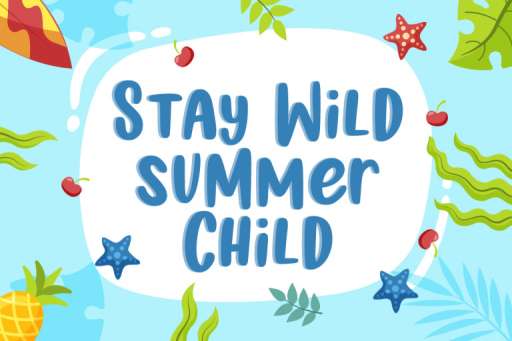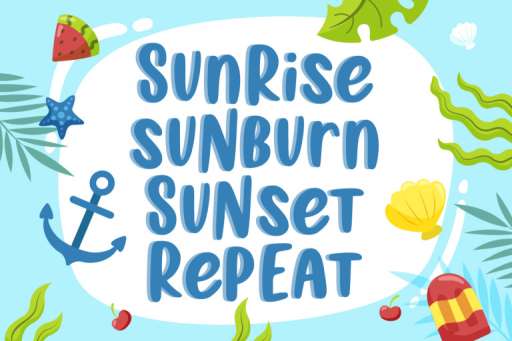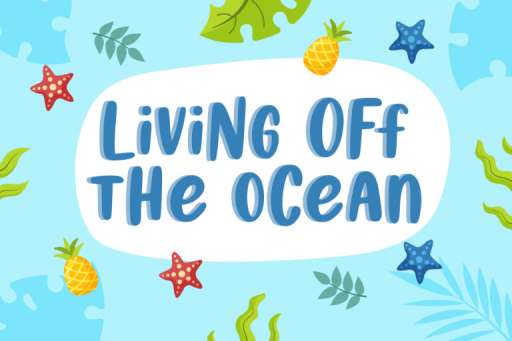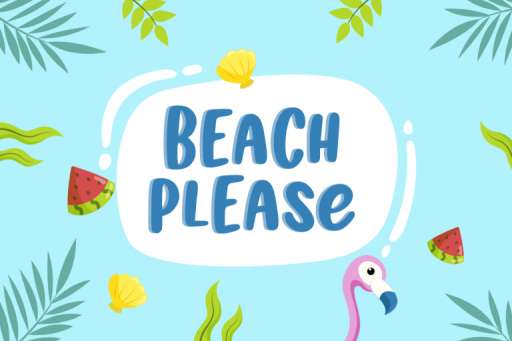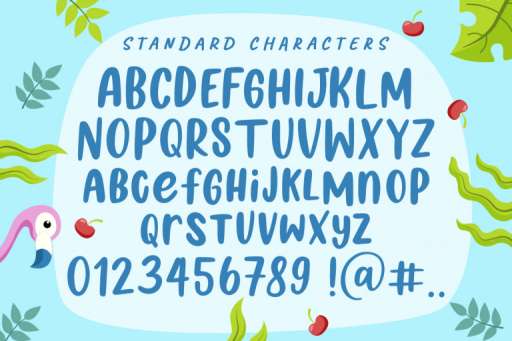
Summer Loving Font - Handwriting Font From Jimtype Studio
Summer Loving Font
Summer Loving – Handwritten Font
Summer Loving – a fun handwritten font, immediately add to your font collection. Play with upper and lower case for a fun different look!
Summer Loving font looks perfect for branding, websites, quotes, handwritten notes, digital planning, greeting cards, and much more!